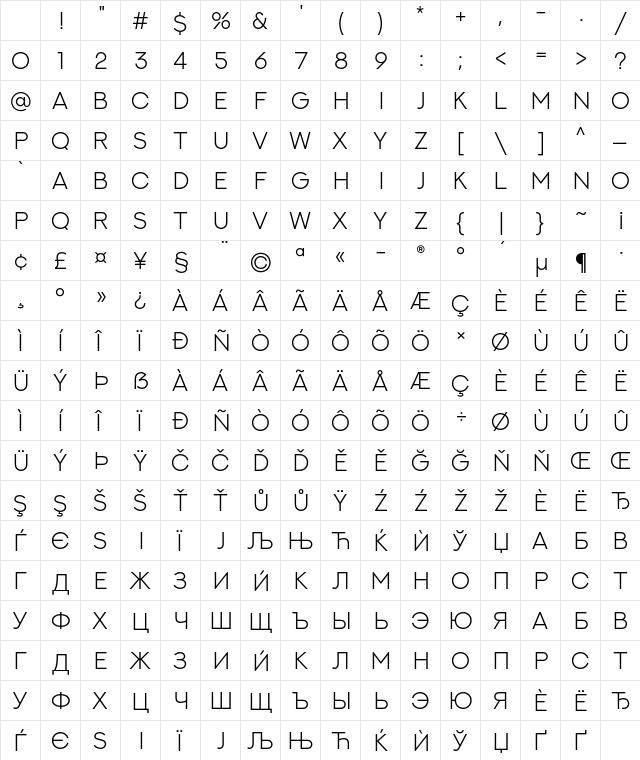
NEXT ART is a composed and adaptable typeface that performs quietly and consistently across a wide range of design contexts. Its slender proportions lend an understated elegance to any composition.